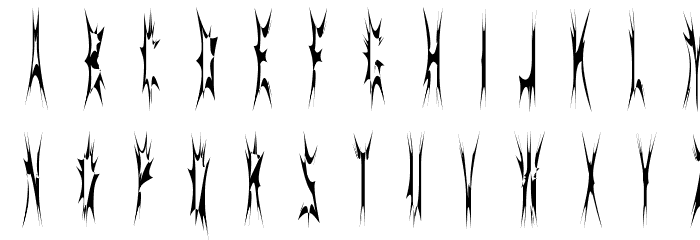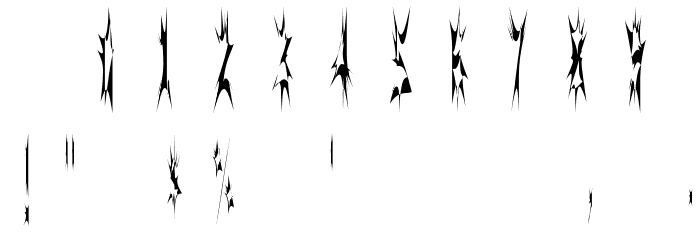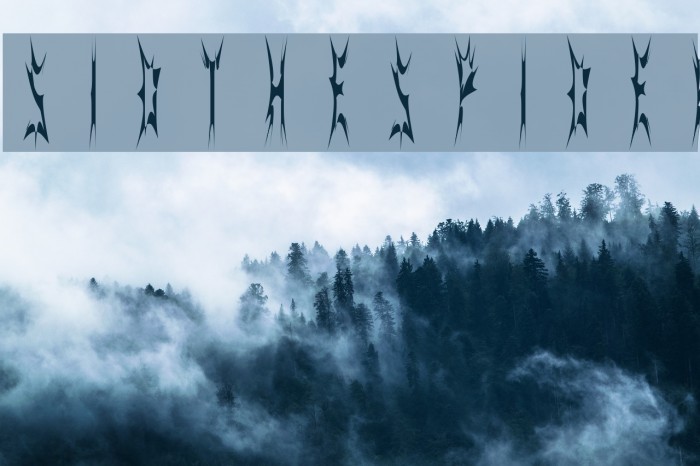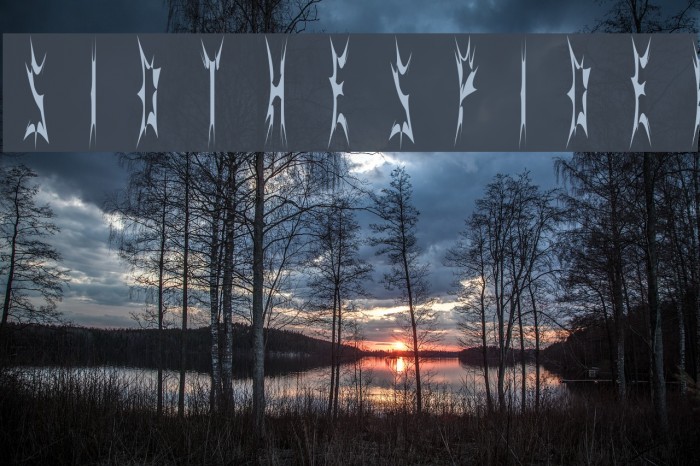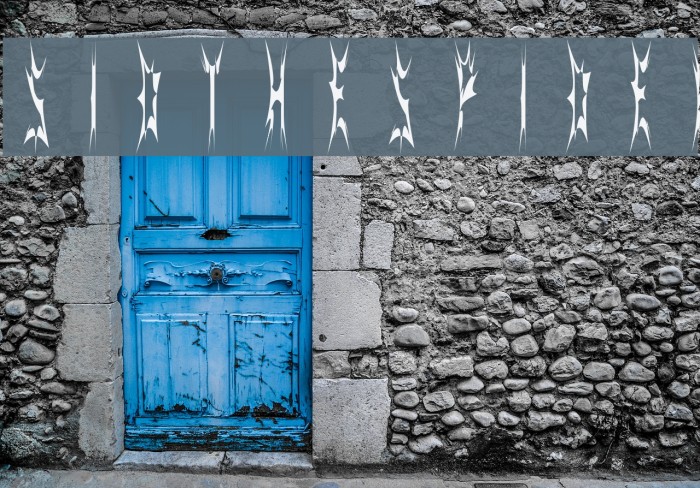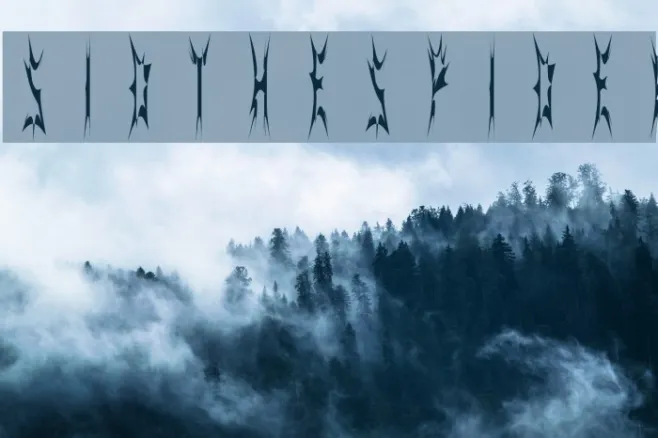
SidTheSpider Font
This font features a highly decorative and unique design, reminiscent of spider webs or thorny vines. Each character is crafted with sharp, jagged edges and intricate detailing, giving it a gothic and eerie appearance. The letters are elongated and spiky, creating a sense of movement and tension. This font is ideal for projects that require a dramatic and eye-catching aesthetic, such as horror-themed designs or Halloween decorations. The intricate design may not be suitable for small text, but it excels in larger displays where its details can be fully appreciated.
A gothic, spider web-inspired decorative font with sharp, jagged edges.
- Proposed Projects: Ideal for horror-themed designs, Halloween decorations, and dramatic posters.
- Overall Style: Gothic, Decorative